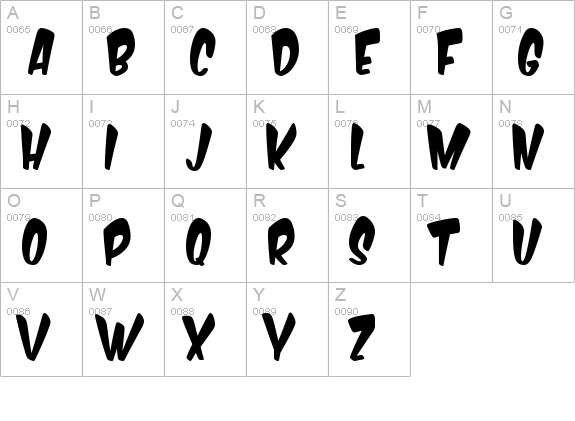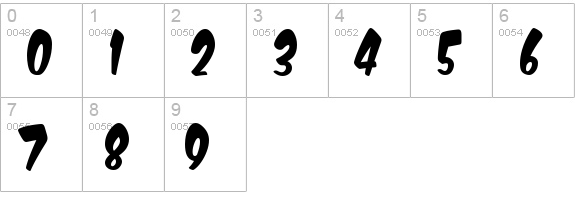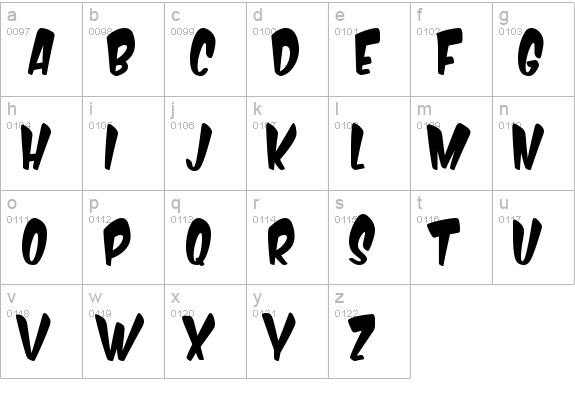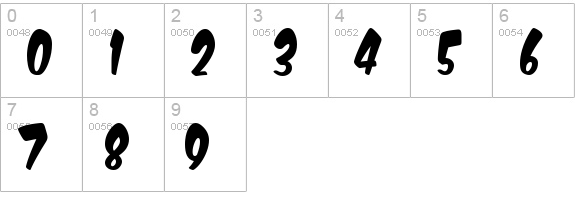
Komika Title - Boogie font is a fun and playful display typeface that exudes a sense of energy and movement. With its bold and quirky characters, this font is perfect for adding a touch of whimsy to your designs. Whether you're working on a poster, flyer, or branding project, Komika Title - Boogie is sure to grab attention and leave a lasting impression. The best part? This fantastic font is available for free download at FontsMarket.com. Don't miss out on the opportunity to add this unique typeface to your font collection and let your creativity run wild with Komika Title - Boogie!